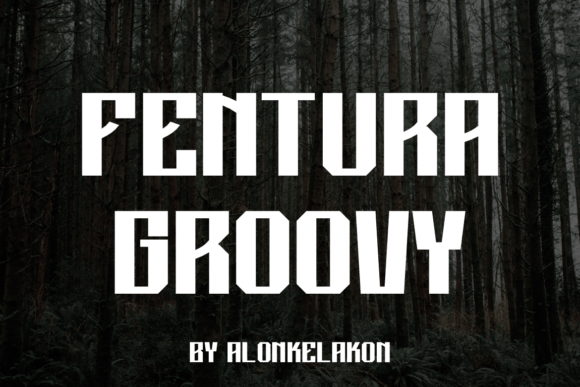
The Groovy Effect: Elevate Your Designs with Fentura Groovy Font
Imagine you’re brainstorming ideas for a new music festival poster, surrounded by eclectic colors and psychedelic vibes. The perfect font can transport your audience to a world of excitement and creativity. This is where the Fentura Groovy Font comes in – a masterfully crafted typeface designed to add a touch of timeless charm to your designs.
With its versatility and elegance, the Fentura Groovy Font is the perfect companion for any designer looking to capture their audience’s attention. Whether you’re working on a dynamic movie scene, an eye-catching poster, or an evocative album cover, this font will breathe life into your creations. Its flexibility makes it an ideal choice for a wide range of design opportunities, from grand title sequences to intimate gig posters.
- Font Family: Fentura Groovy
- Character Count: 1000+ glyphs, including Latin, Cyrillic, and Greek alphabets
- Unique Characteristics: Groovy, retro-futuristic design with a mix of geometric and organic shapes; perfect for creating a unique and eye-catching visual identity
Fentura Groovy Font Review
Fentura Groovy Font is a font that truly stands out in the world of typography. ✨ One of its strongest features is its unique and quirky design, perfect for making a statement in modern designs. It’s a font that screams fun and creativity, and I can see it being used in a variety of projects from posters to social media graphics.
Here are some of the things that I love about Fentura Groovy Font:
- ✨ High contrast and legibility make it perfect for reading and displaying text.
- ✨ The font is highly customizable, allowing users to adjust the size, color, and spacing to their liking.
- ✨ It’s a great font for making bold statements and adding a touch of personality to designs.
However, there are some limitations to the font that are worth noting:
- ⚠️ The font may be too flashy or over-the-top for some designs, so be sure to use it sparingly.
- ⚠️ It may not be the best choice for formal or professional designs, as it can come across as unprofessional.
Overall, I think Fentura Groovy Font is a fantastic choice for designers who want to add a touch of fun and creativity to their designs. With its high contrast and legibility, it’s perfect for reading and displaying text, and its customization options make it highly versatile. Just be sure to use it in the right context to get the most out of it.
Use Fentura Groovy Font for creative and playful projects, such as social media graphics, posters, and flyers.
Pair Fentura Groovy Font with other fonts to create a unique and eye-catching design.
Fentura Groovy Font is perfect for:
Brand logos and identity
Social media graphics and ads
Posters and flyers
Business cards and stationery